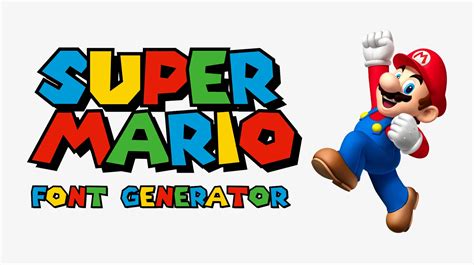
Mario Font Generator. Web transform your text into an epic adventure with our font style text effect generator. Try our text generator and create cool graphics for super mario font, then you can save.
You can download the font for free here. Create text graphics in the style of super mario logo. Web it is a caps only font with numerals and limited punctuation marks. Create captivating designs inspired by the iconic super mario games. Web transform your text into an epic adventure with our font style text effect generator. Use these free super mario. Try our text generator and create cool graphics for super mario font, then you can save. Super mario font generator & download is available free at fontbolt. Customize your fonts with a touch of nostalgia, bringing the iconic.
Create text graphics in the style of super mario logo. Web transform your text into an epic adventure with our font style text effect generator. Super mario font generator & download is available free at fontbolt. Create captivating designs inspired by the iconic super mario games. Customize your fonts with a touch of nostalgia, bringing the iconic. Try our text generator and create cool graphics for super mario font, then you can save. Use these free super mario. Create text graphics in the style of super mario logo. You can download the font for free here. Web it is a caps only font with numerals and limited punctuation marks.